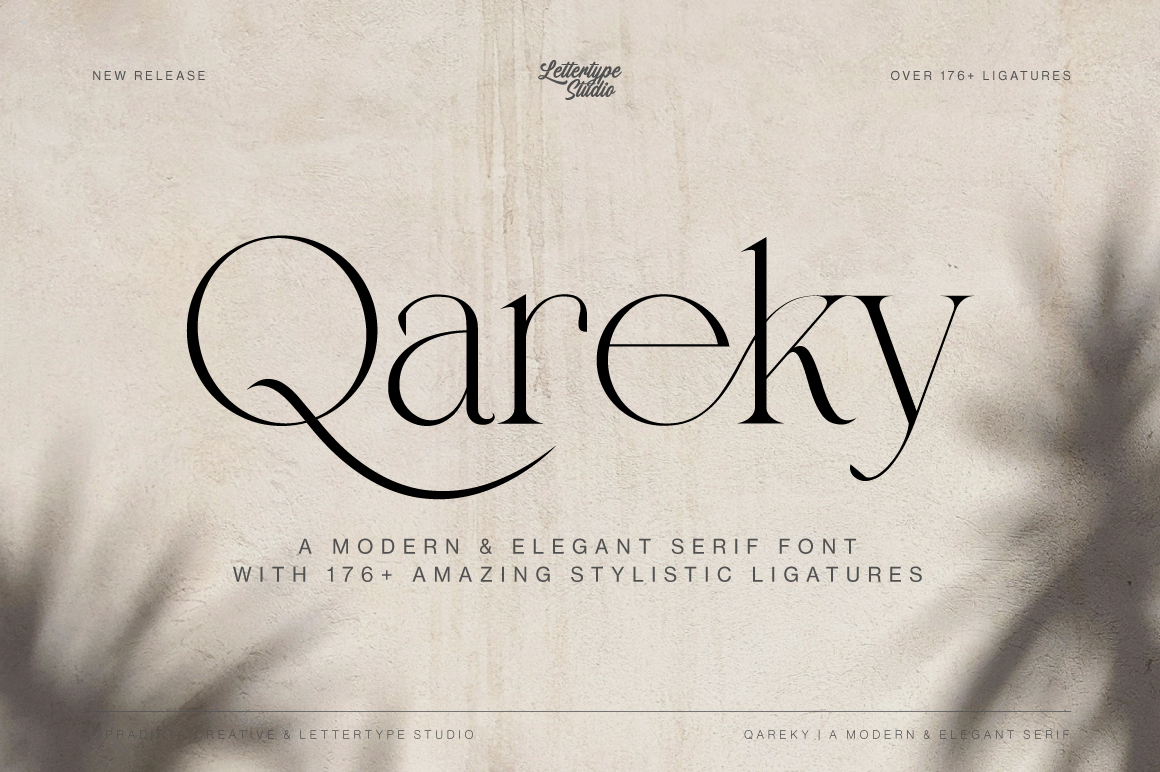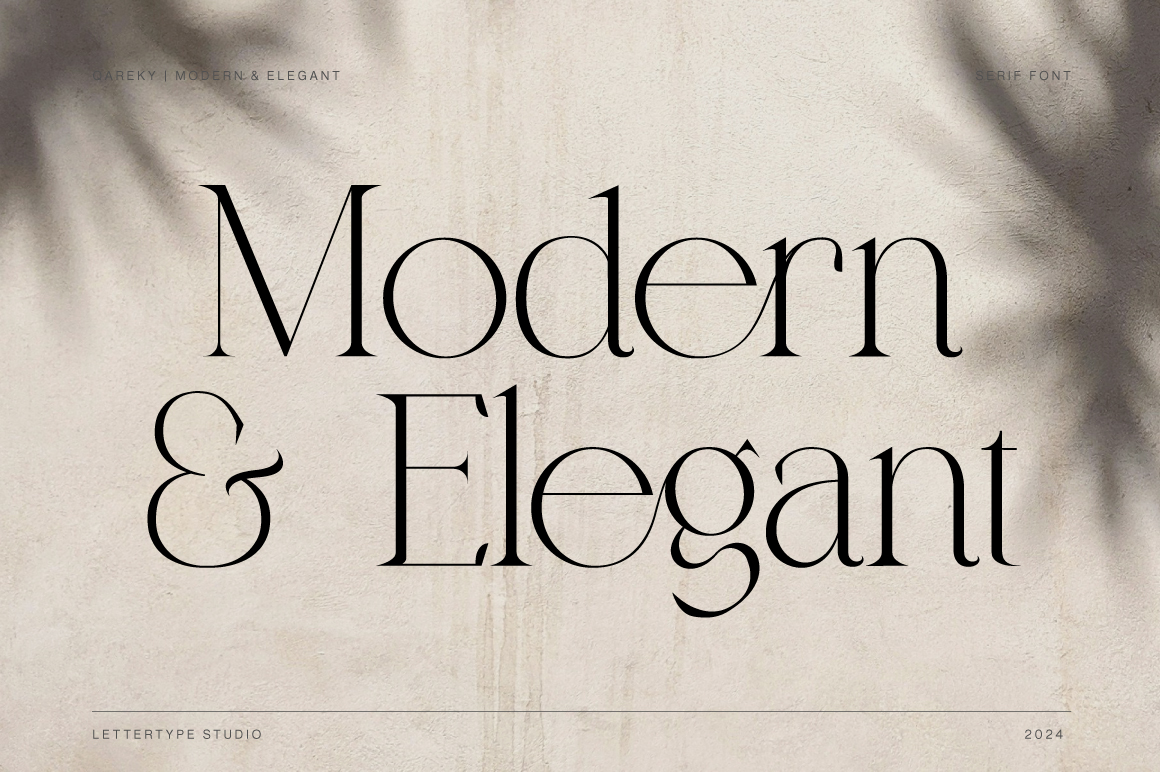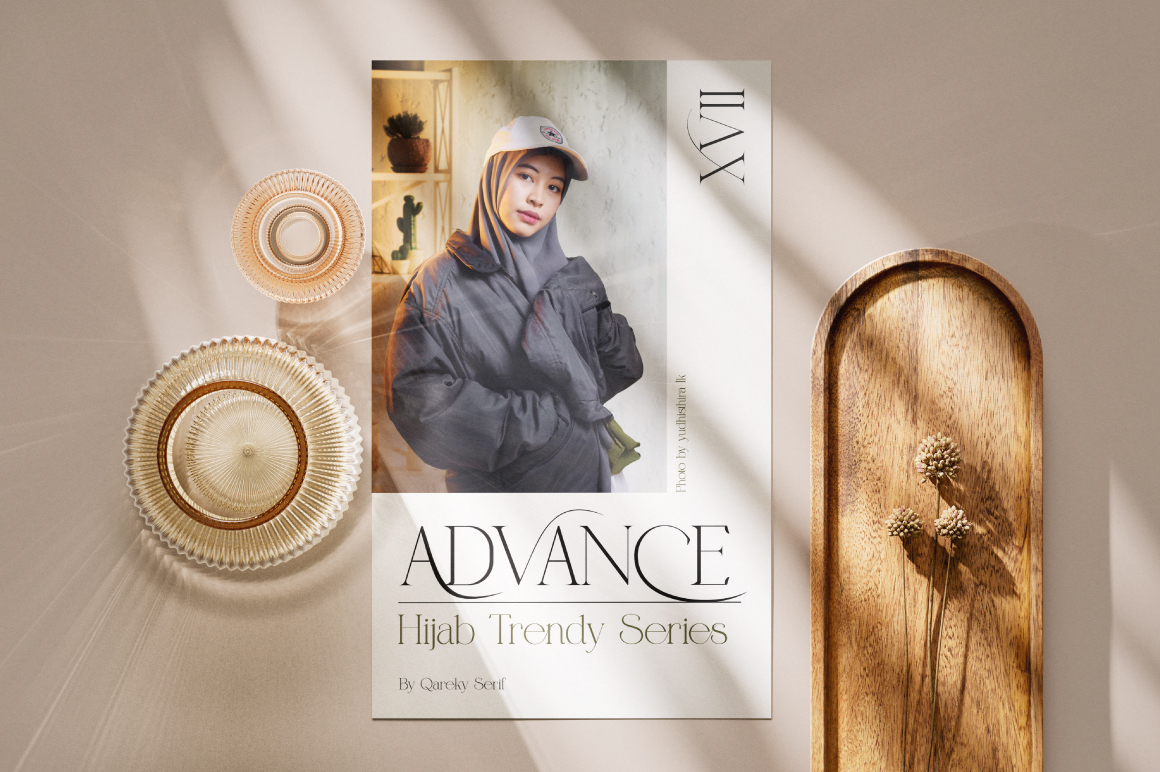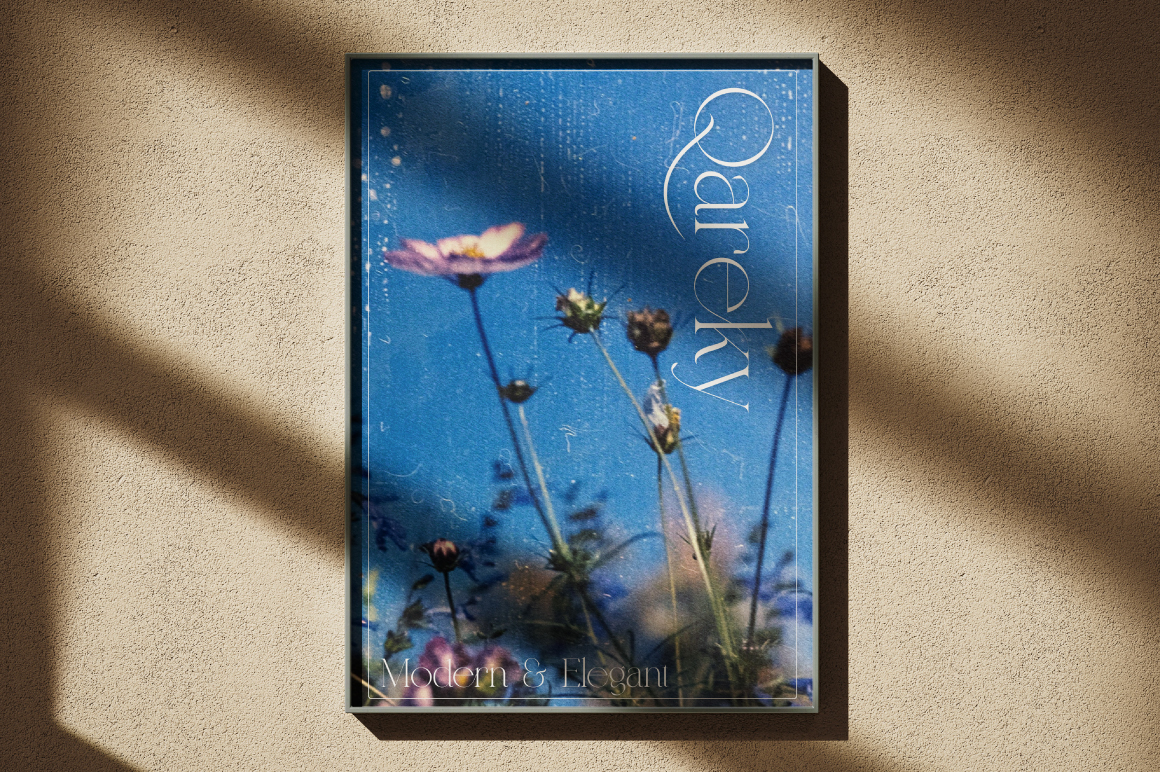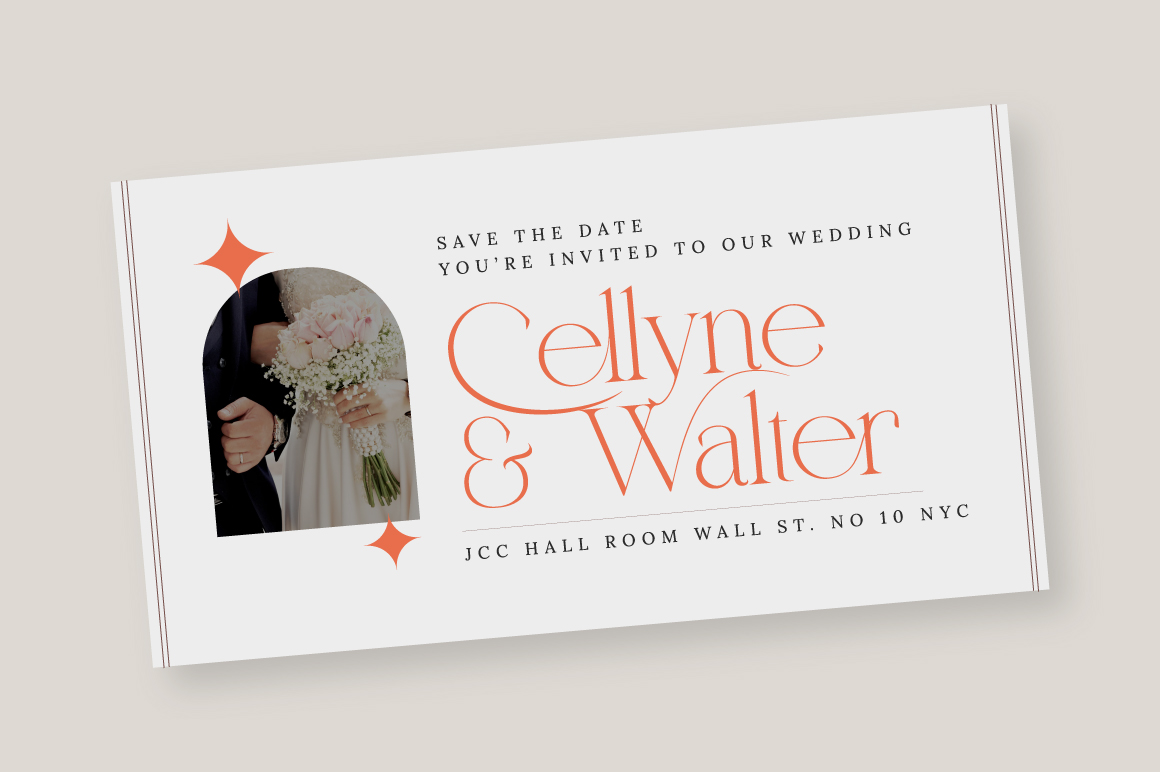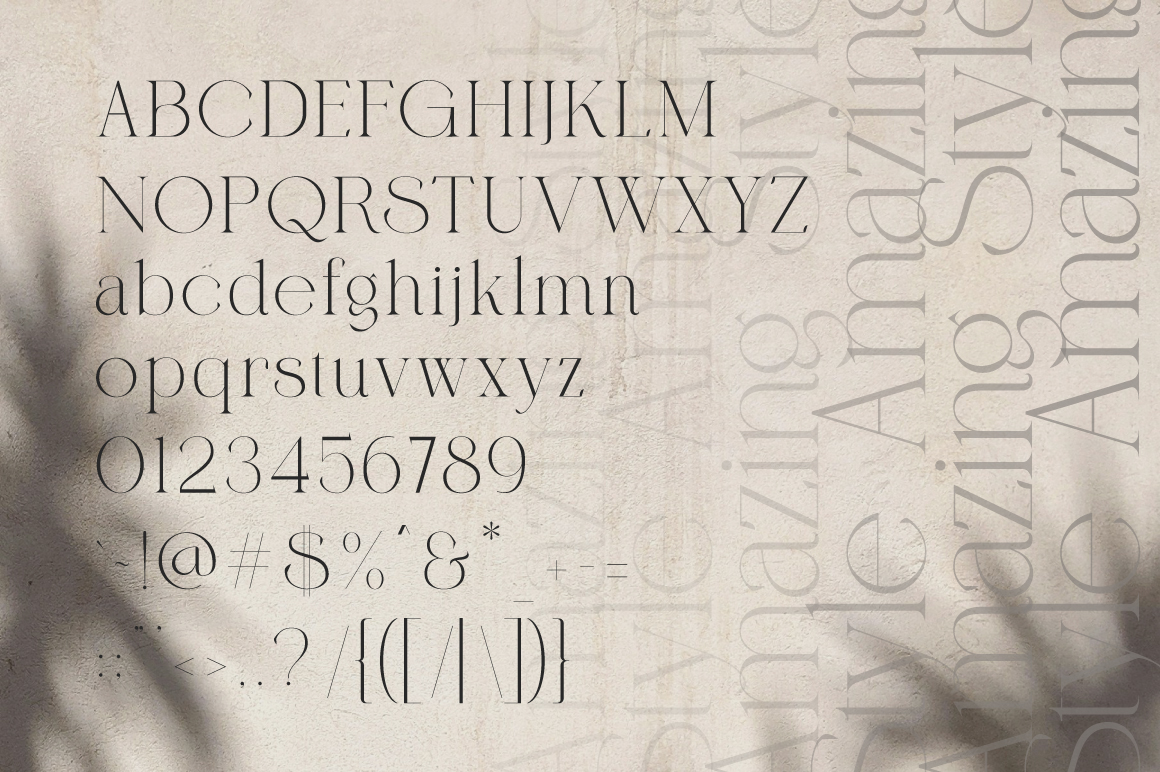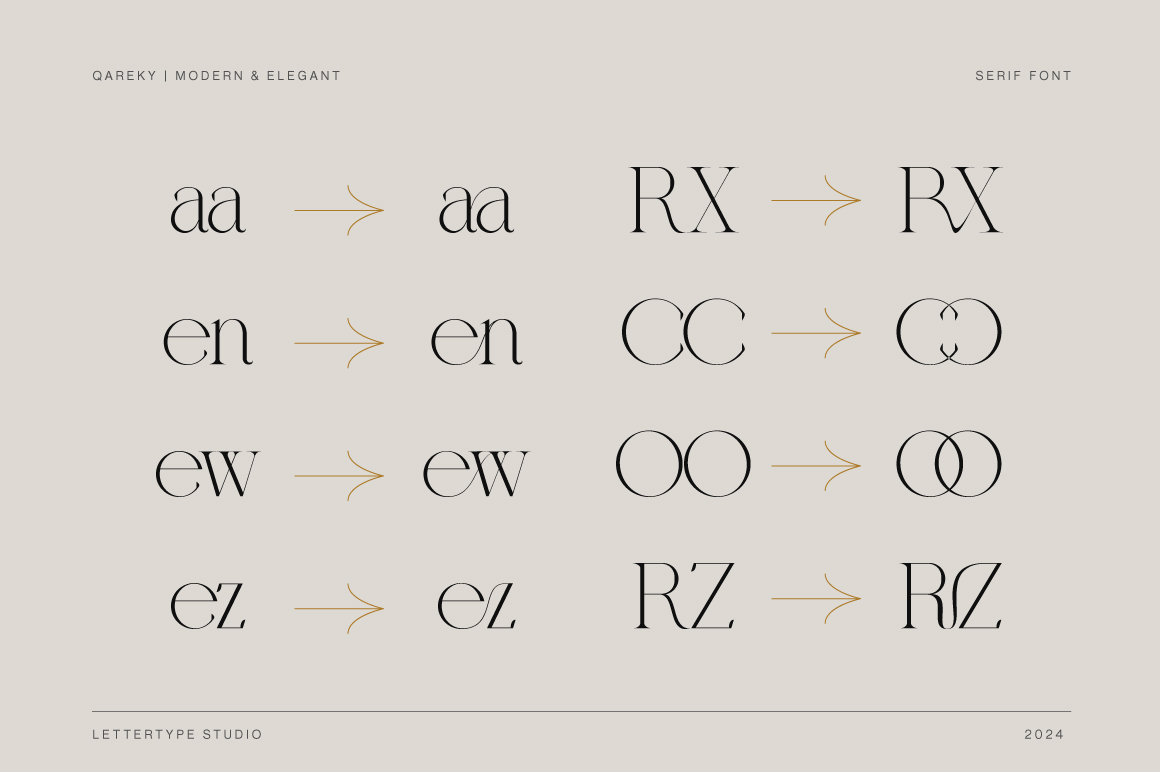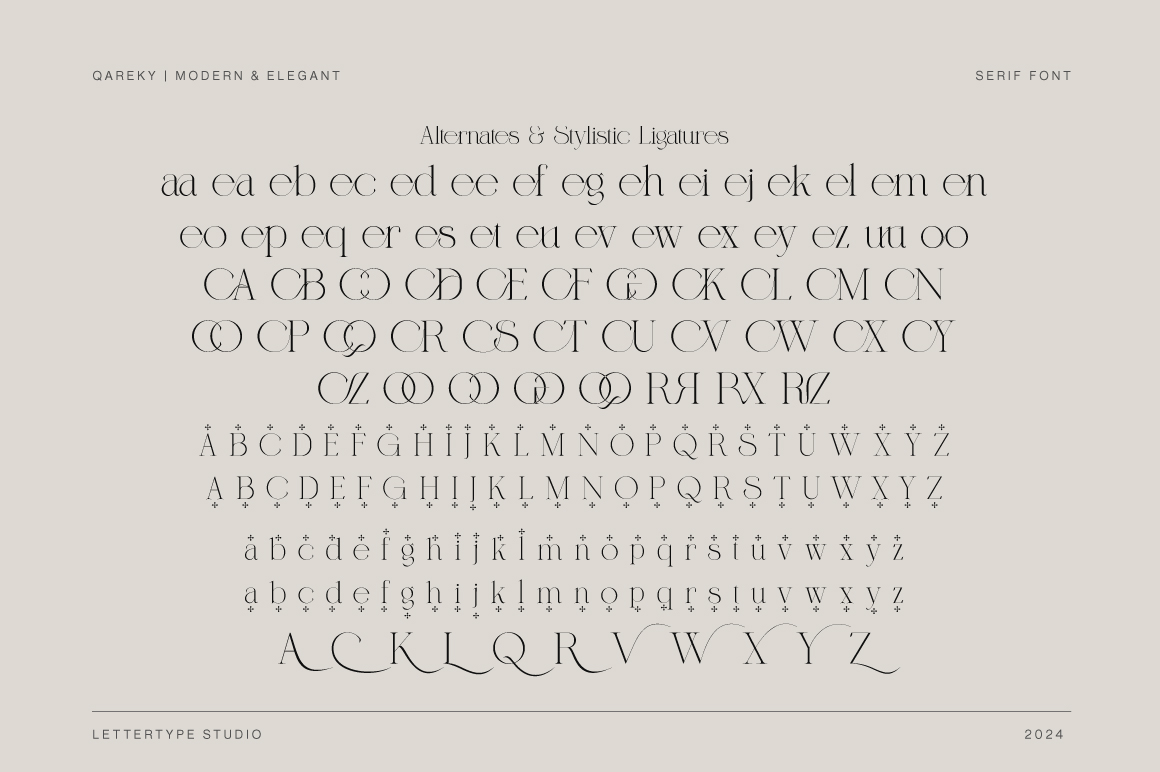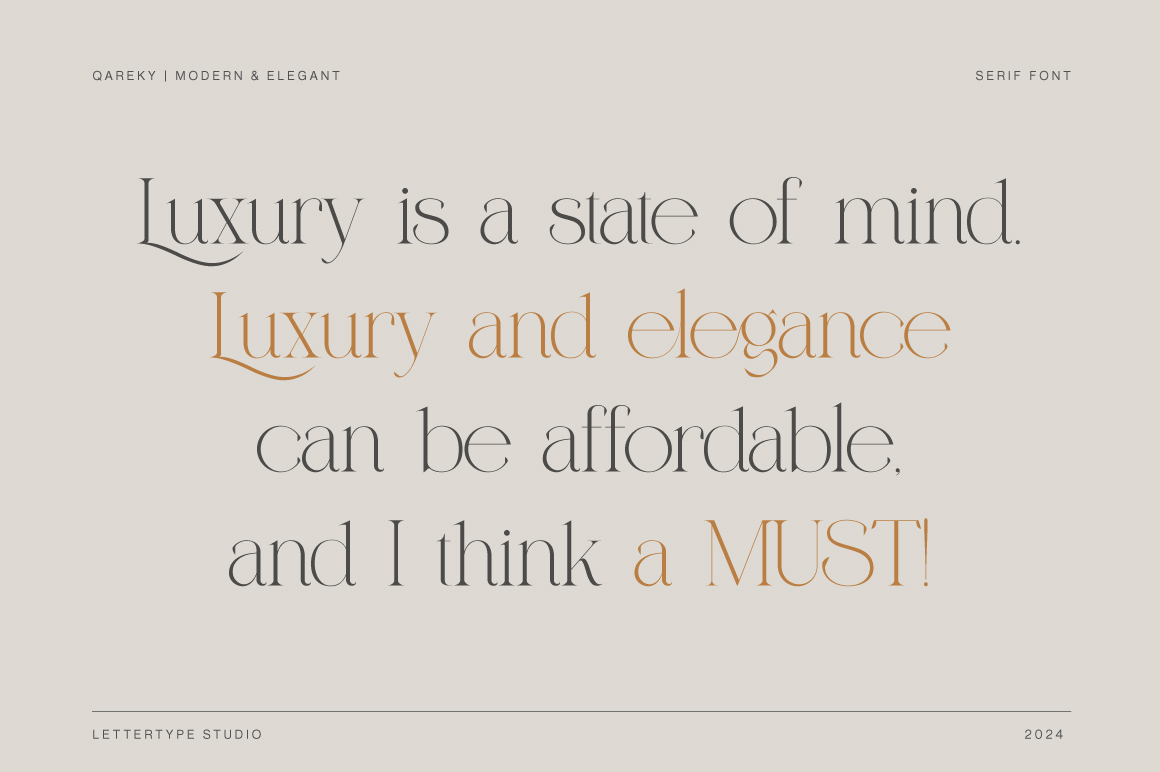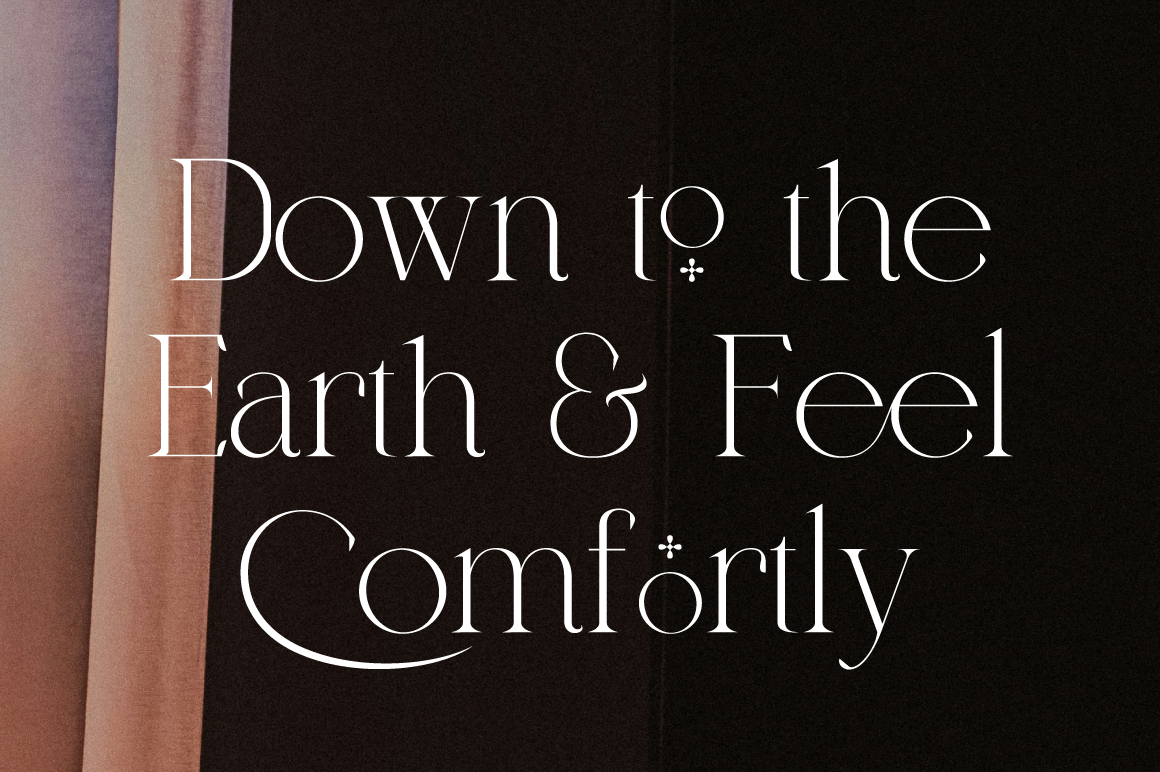
Qareky is a modern elegant serif font family that captures the timeless sophistication of classic typography. Inspired by 18th-century design, it blends luxurious detailing with modern geometric precision to create a refined and versatile typeface.
Featuring 18 styles and over 120 ligatures, Qareky offers designers complete creative control across print and digital media. Perfect for fashion, branding, and editorial design, it elevates every layout with a perfect balance of classic grace and modern confidence.
Qareky Features:
- Lowercase & Uppercase
- Numerals & Punctuation
- Alternates & Ligature
- Multilingual Support
- Luxury branding, packaging & high-end editorial design
- Fashion campaigns, magazines & lookbooks
- Wedding stationery, invitations & logo design
- Elegant web typography & premium product labels
- Timeless projects that balance modern and classic beauty